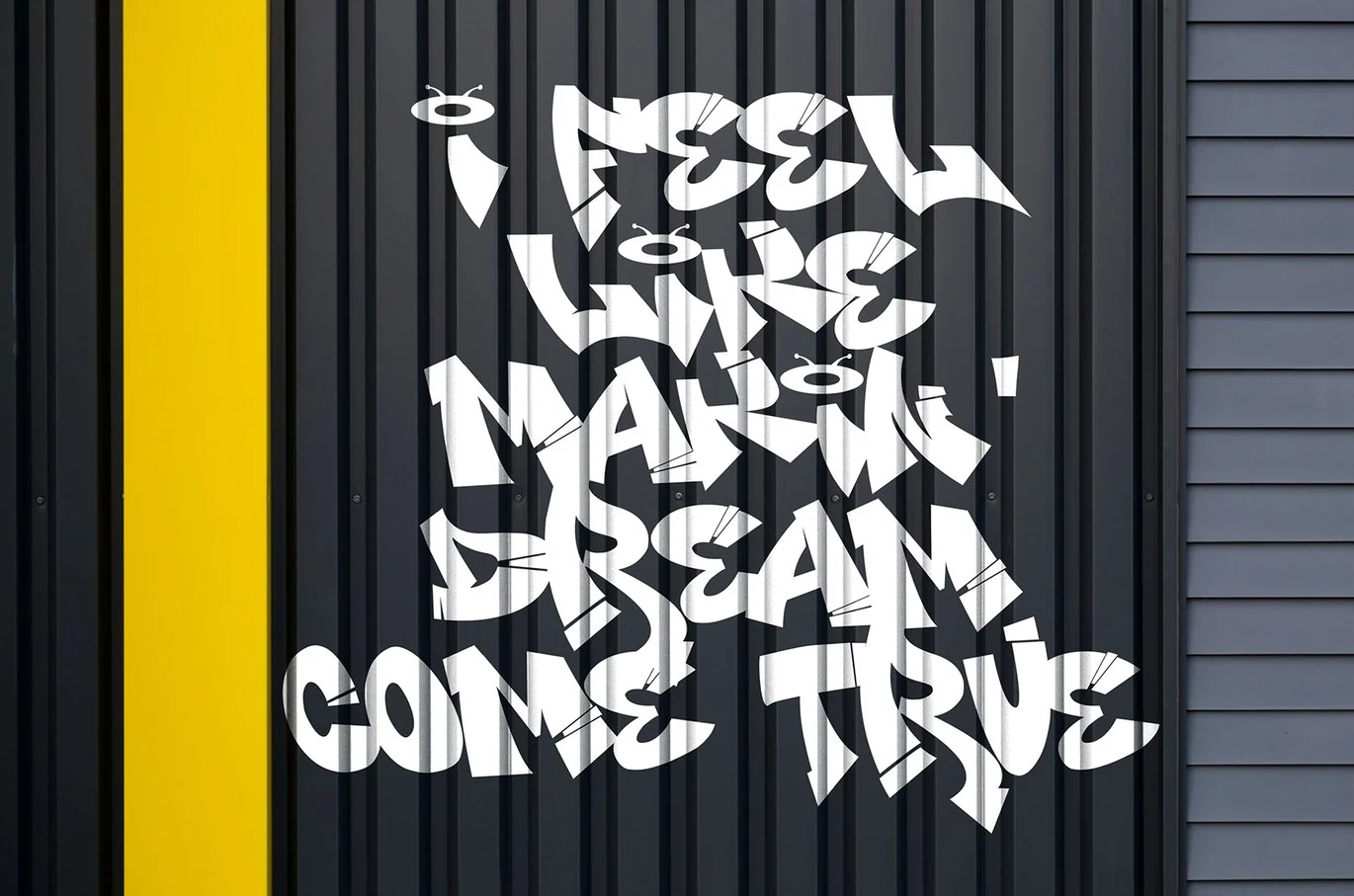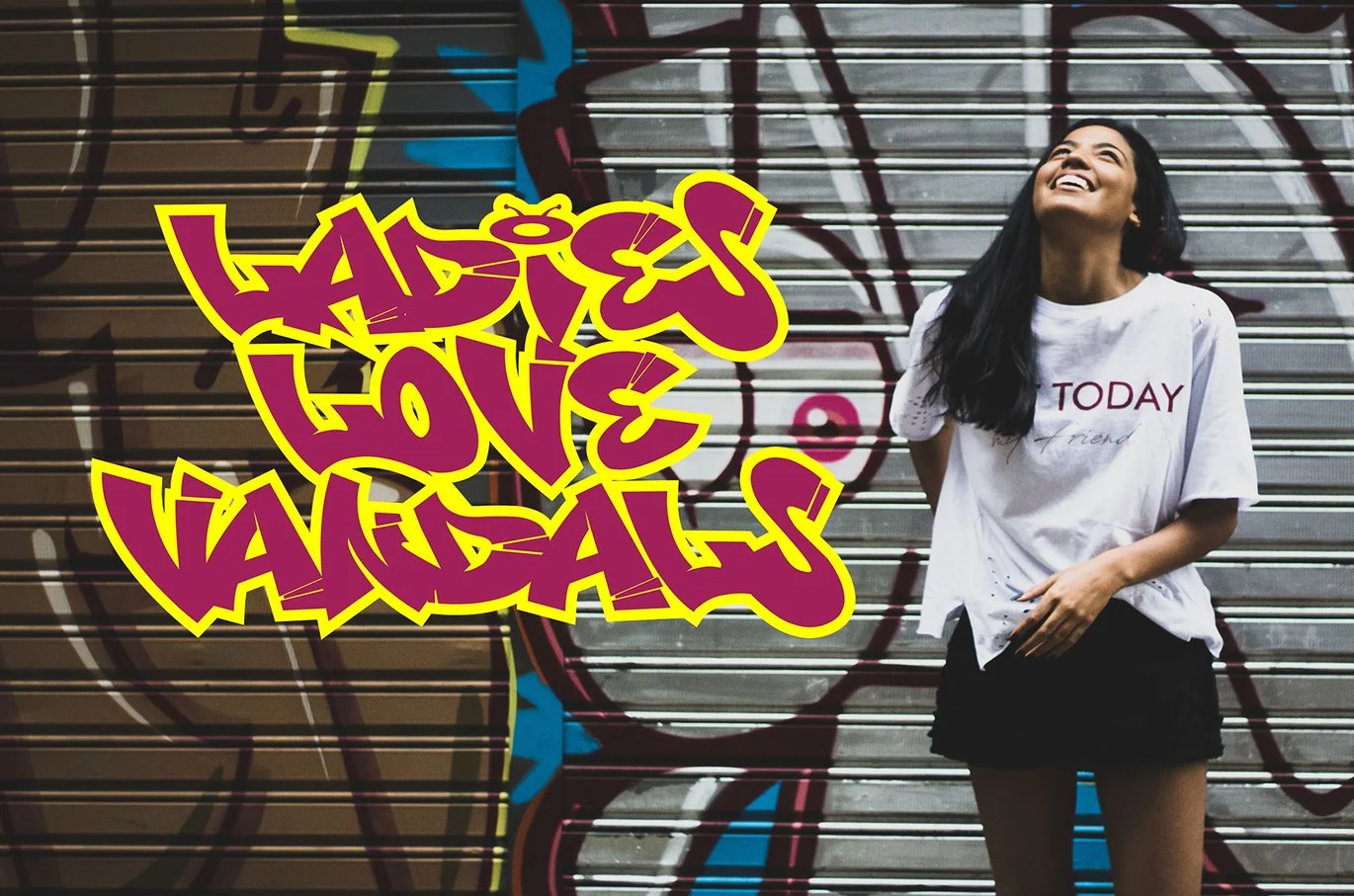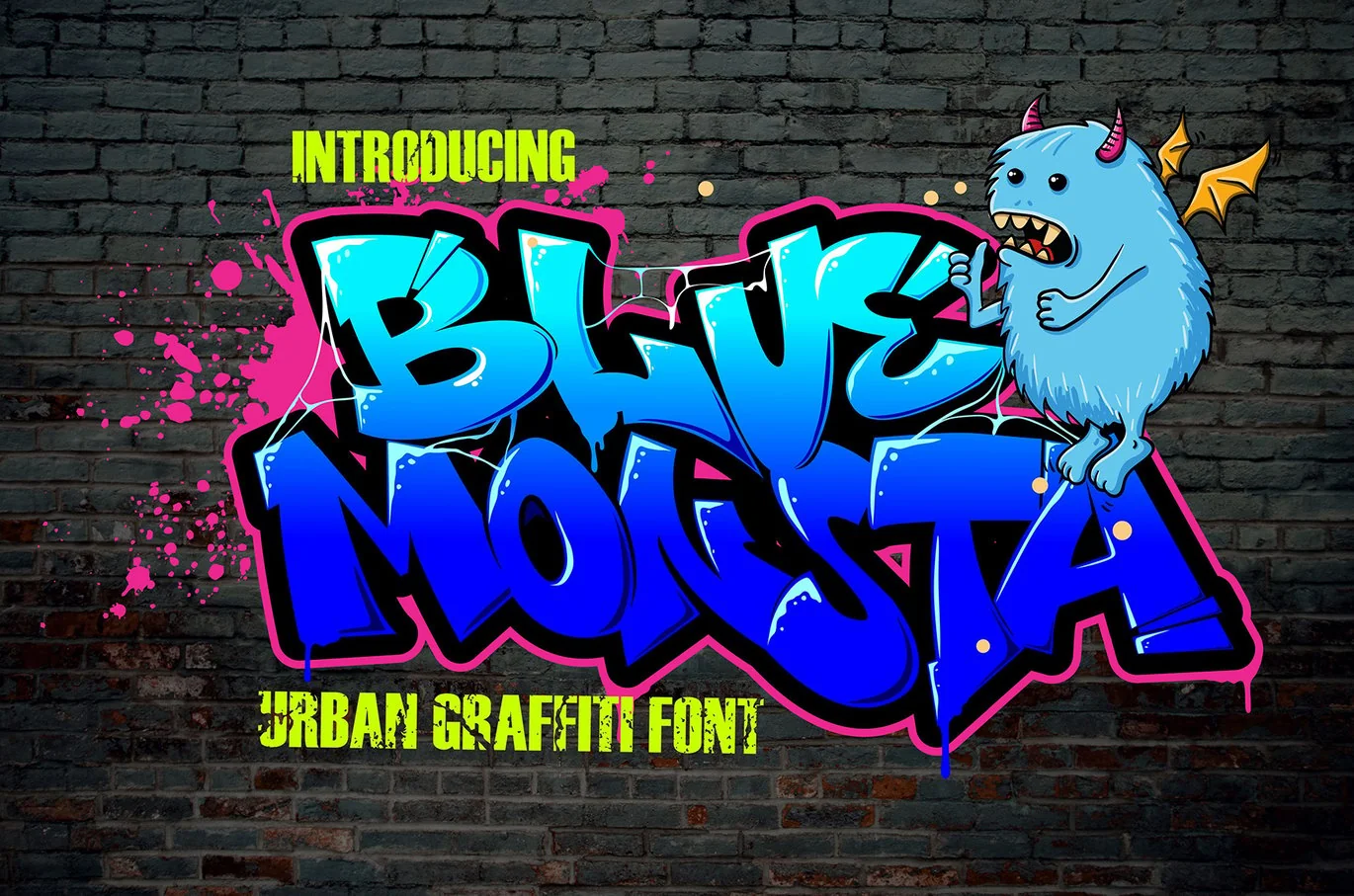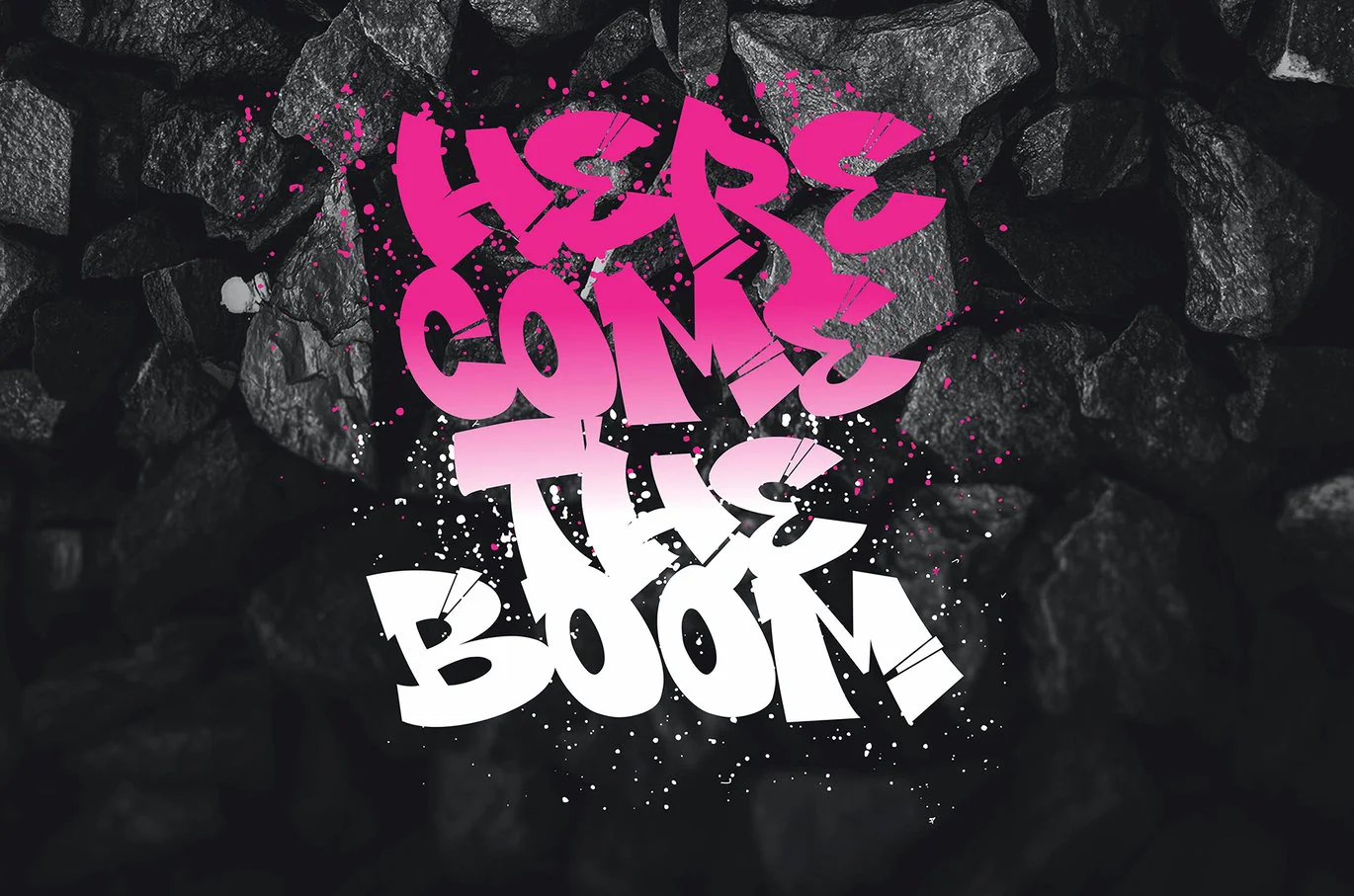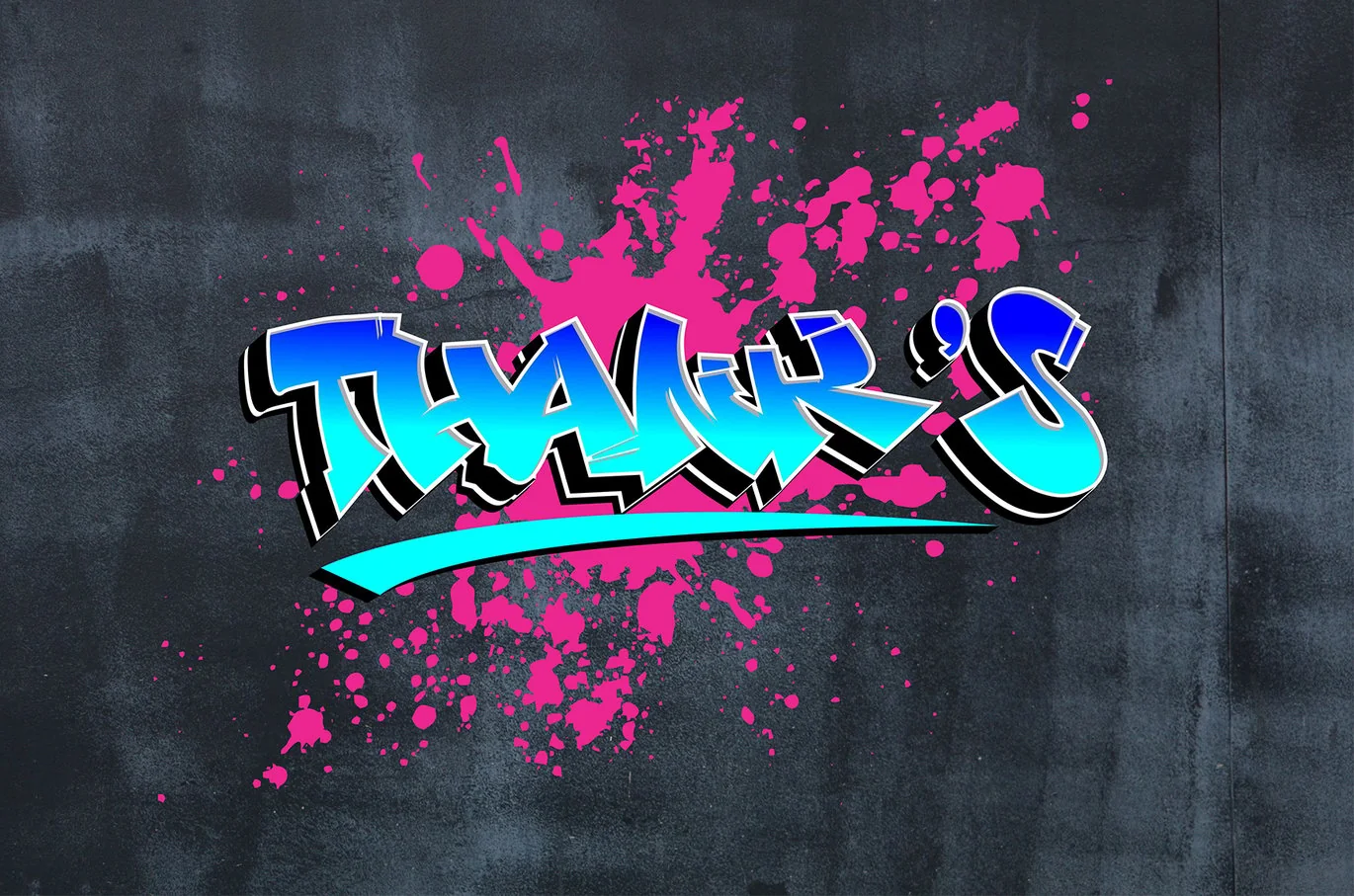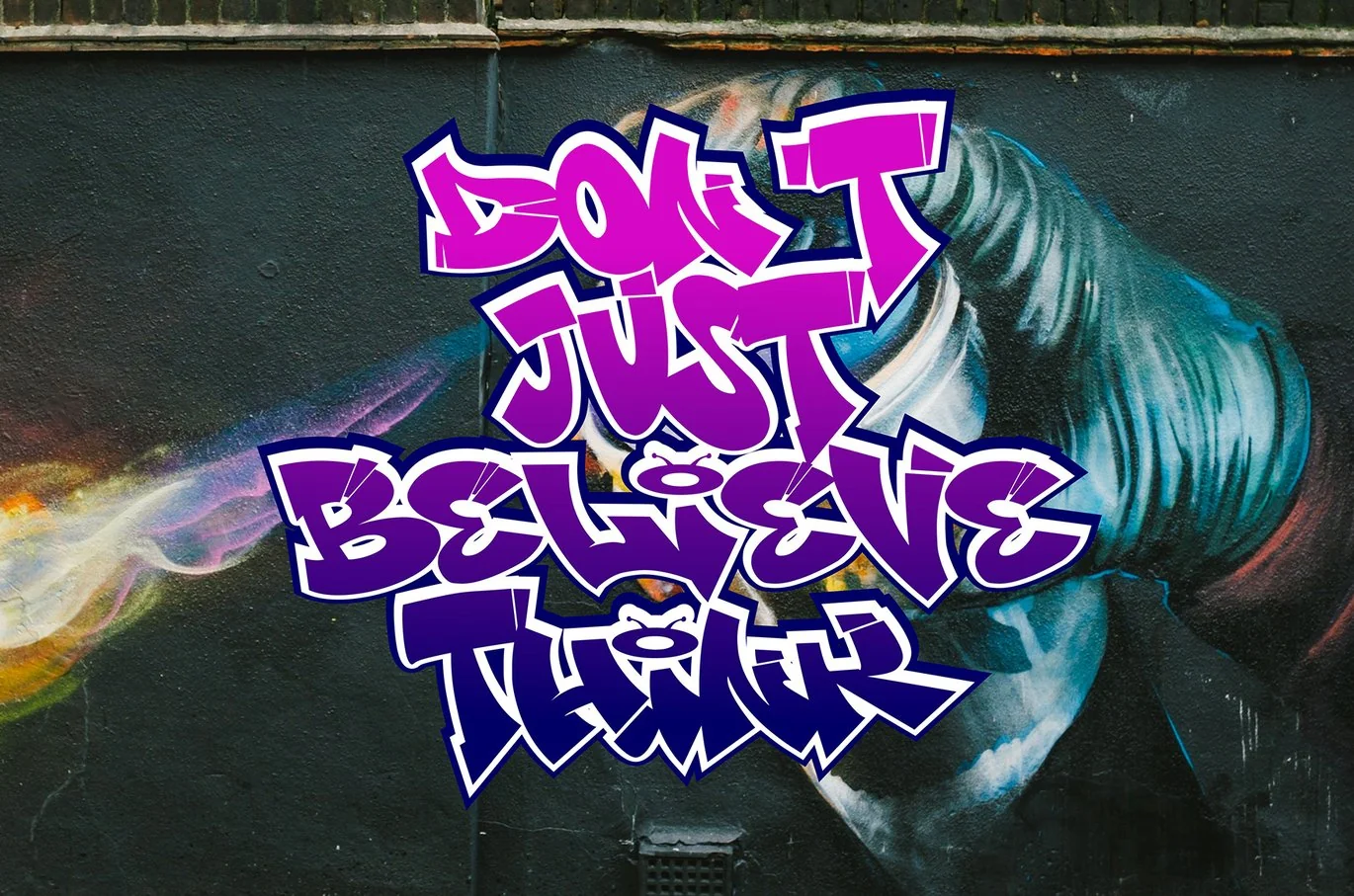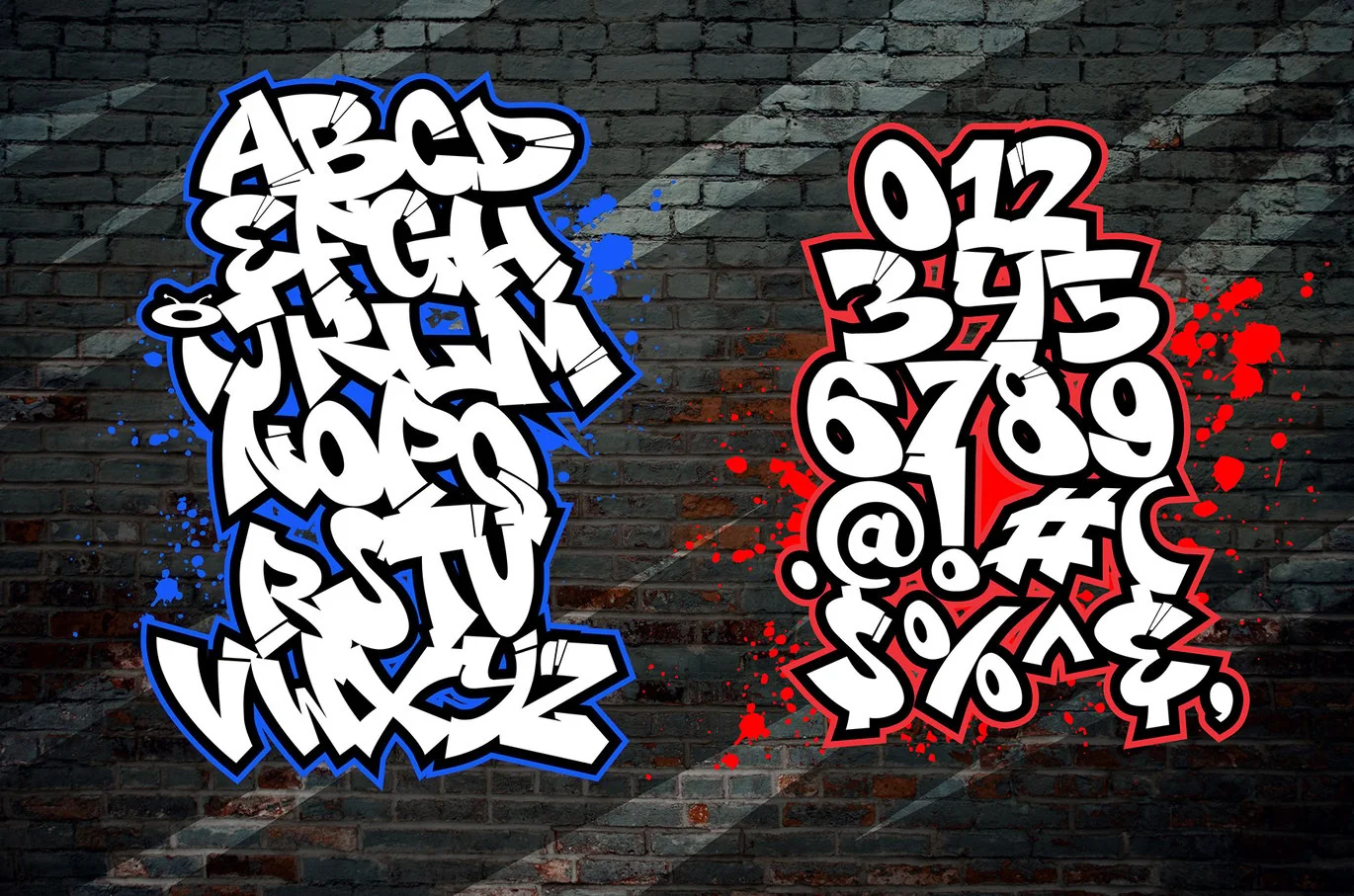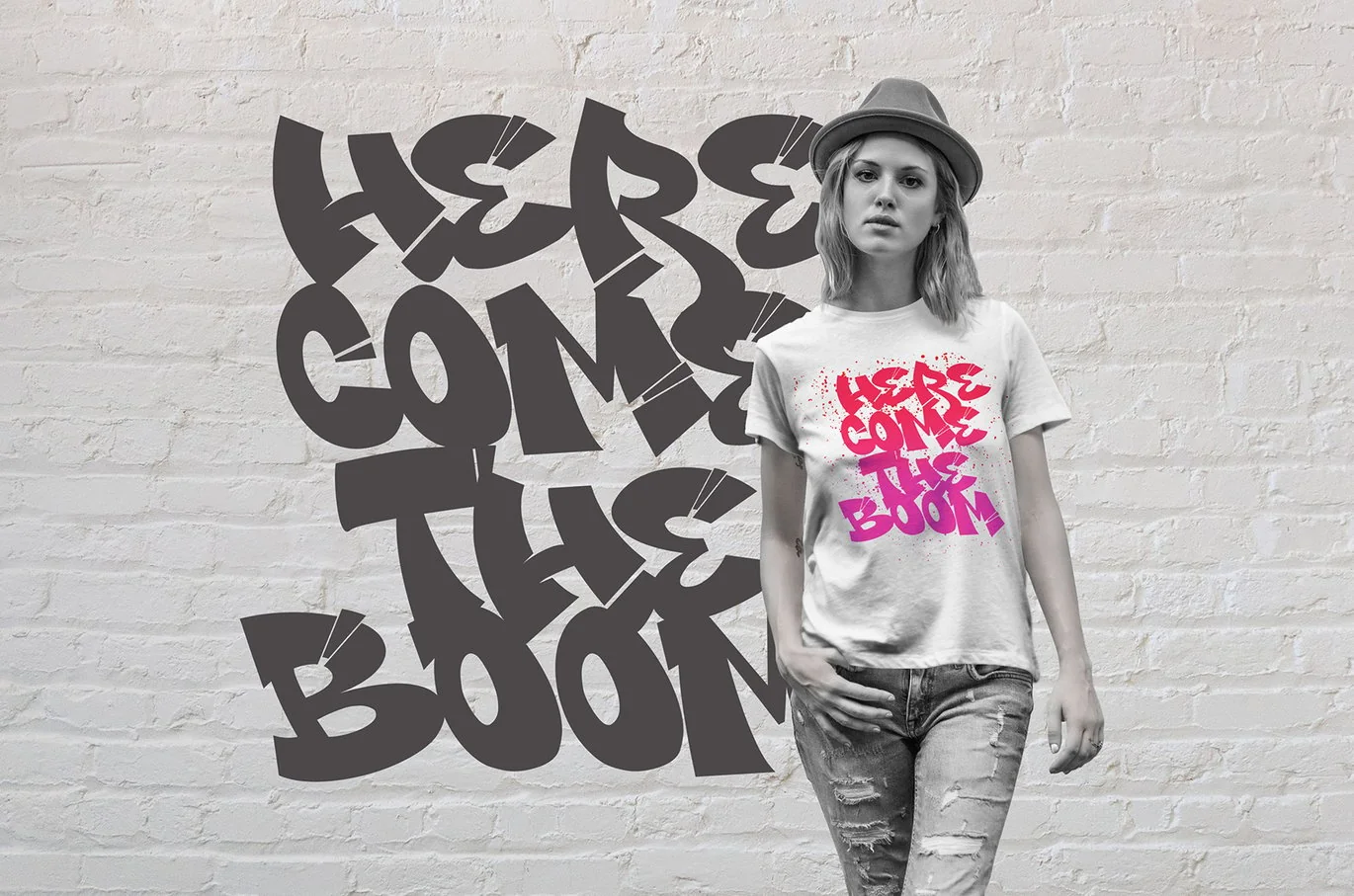
Blue Monsta – Cute Graffiti font
Blue Monsta is a spectacular decorative font with a graffiti style and included some swash for your design to look awesome. It will elevate a wide range of design projects to the highest level, be it branding, headings, wedding designs, invitations, signatures, logotype, wall art illustration, apparel, labels, and much more!